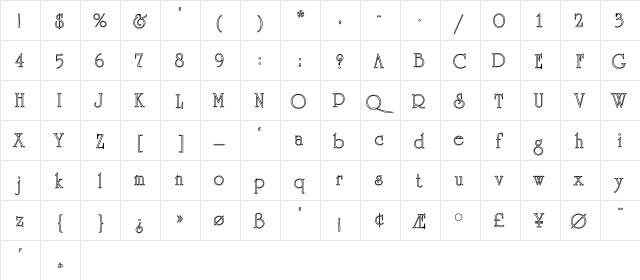
University-Thin Hollow Regular
Design Context for University-Thin Hollow Typeface
University-Thin Hollow is a composed and adaptable typeface that performs quietly and consistently across a wide range of design contexts. The delicate stroke weight brings airiness and refinement to layouts.